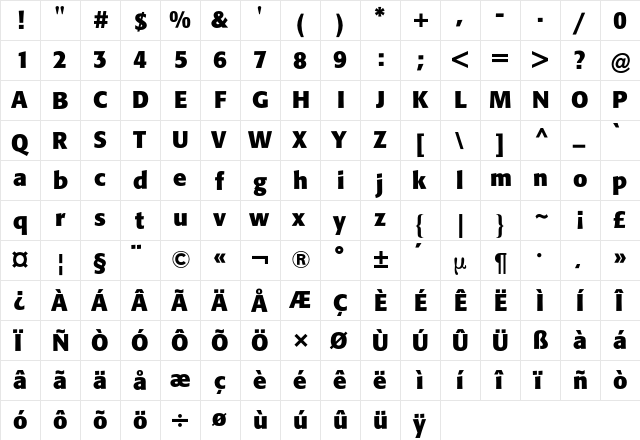
Formata BQ Regular
Design Context for Formata BQ Typeface
Formata BQ is a composed and adaptable typeface that performs quietly and consistently across a wide range of design contexts.
Pro Tip: Pair Formata BQ with a font of contrasting weight or personality to build a more expressive typographic hierarchy.